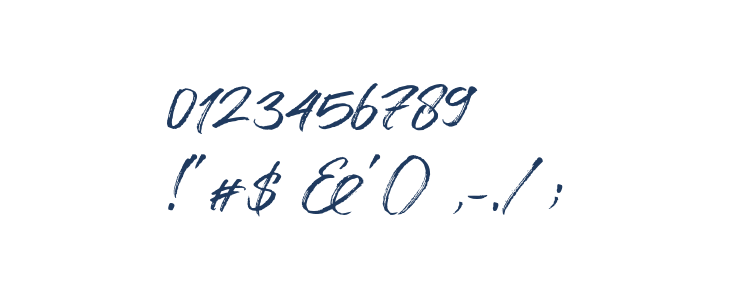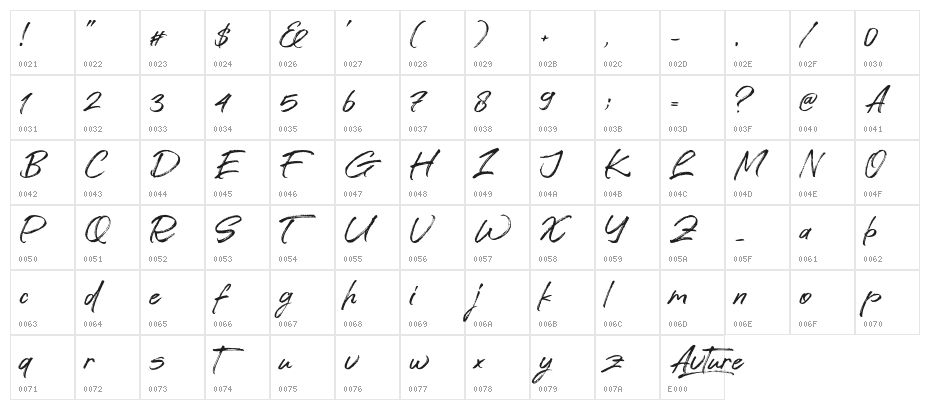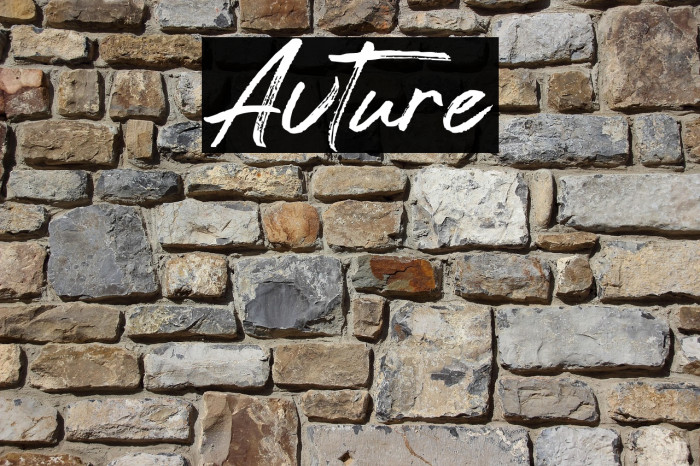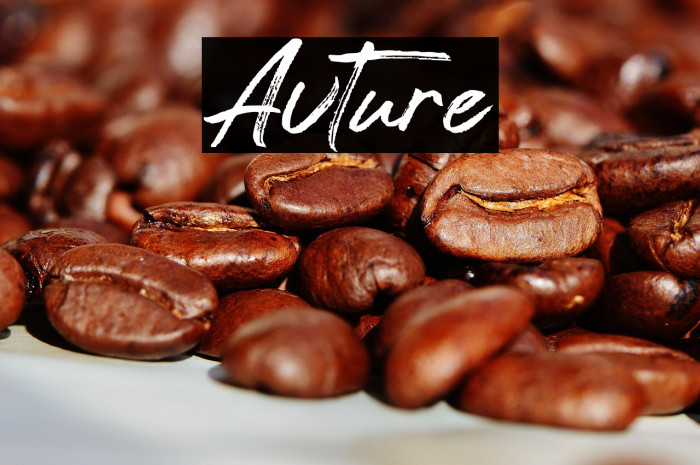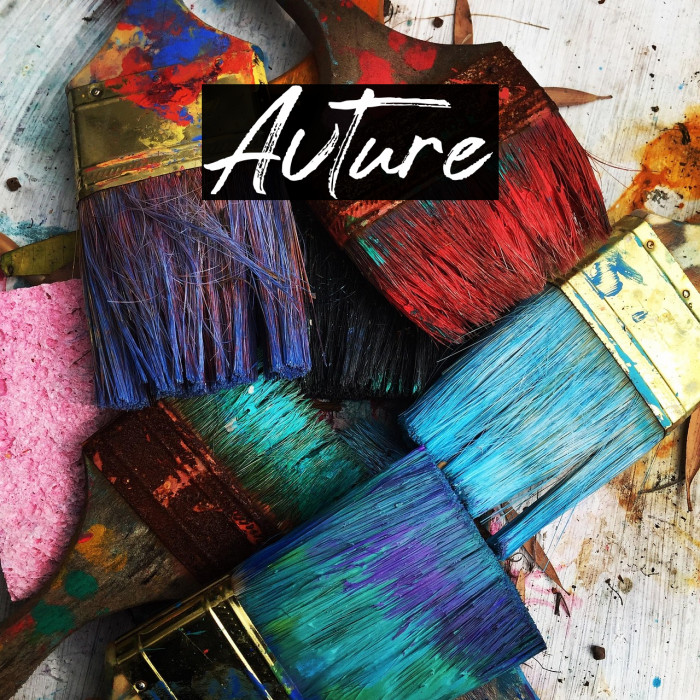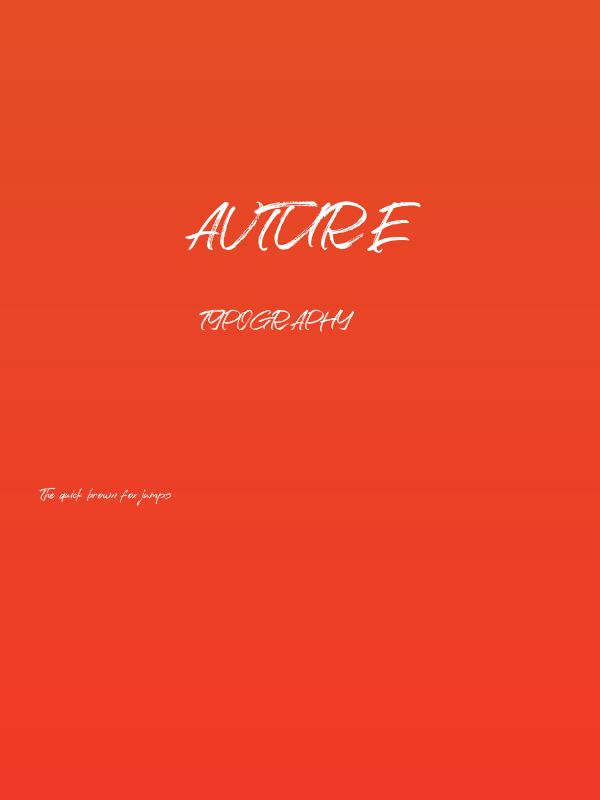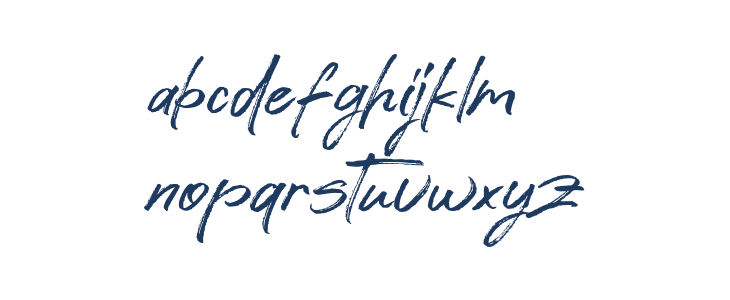
Avture Font
Avture Description
This font exudes a dynamic and energetic style, characterized by its fluid, cursive script that mimics the natural flow of handwriting. The strokes are bold and expressive, with varying thickness that adds a sense of movement and personality. The uppercase letters are slightly more structured, while the lowercase letters maintain a casual, freeform appearance. The numbers and special characters follow the same lively aesthetic, making the font versatile for creative projects. Its overall look is both artistic and approachable, suitable for designs that require a personal touch.
| Use Case | Logos, Headlines, Artistic projects |
| Proposed Projects | Ideal for invitations, greeting cards, branding, and artistic projects that require a personal, handwritten feel. |